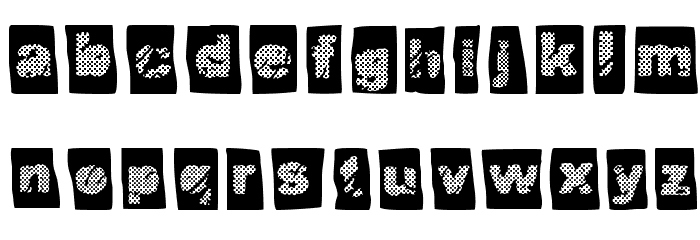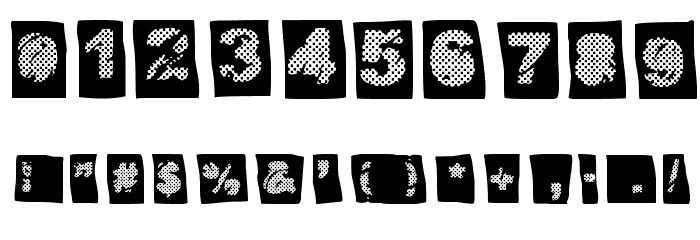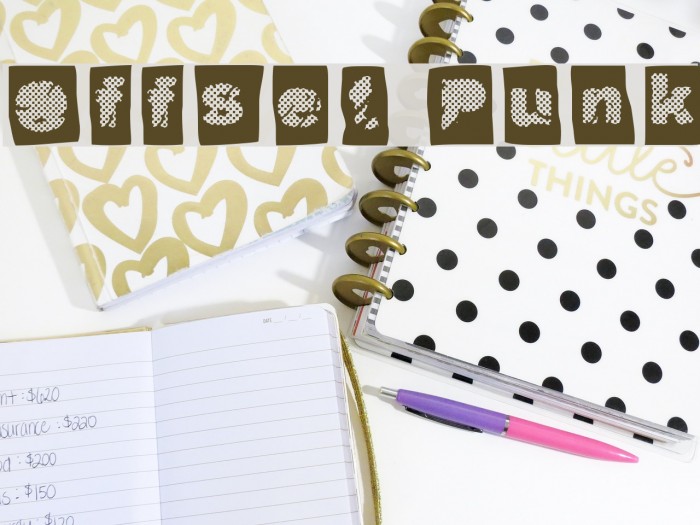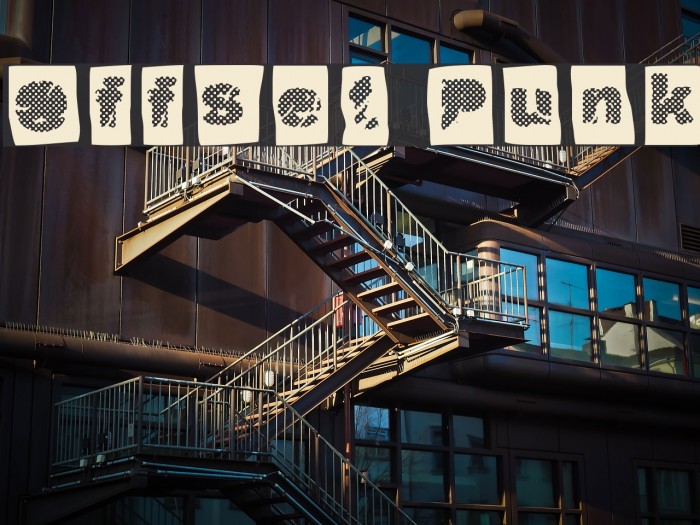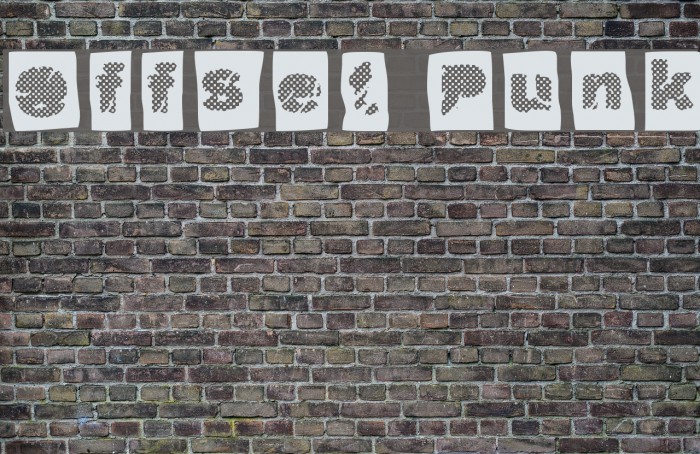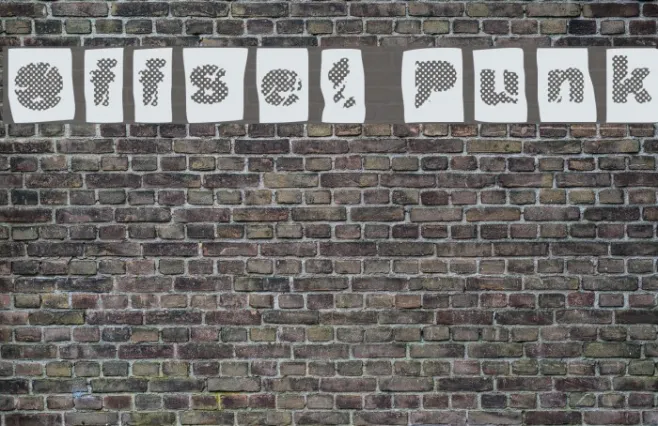
Offset Punk Font
This font features a bold, edgy design with a punk-inspired aesthetic. Each character is enclosed in a rough, uneven square, creating a collage-like effect reminiscent of cut-out letters. The letters themselves are filled with a halftone pattern, adding a textured, gritty feel. The overall style is chaotic and rebellious, perfect for projects that require a strong, unconventional look. The font's unique appearance makes it stand out, with its high contrast and irregular shapes contributing to its distinctive character.
A bold, punk-inspired font with a halftone texture and collage-like appearance.
- Proposed Projects: Ideal for music album covers, punk-themed posters, edgy branding, and rebellious fashion labels.
- Overall Style: Punk, Edgy, Rebellious
- Use Case: Headlines, Posters, Branding